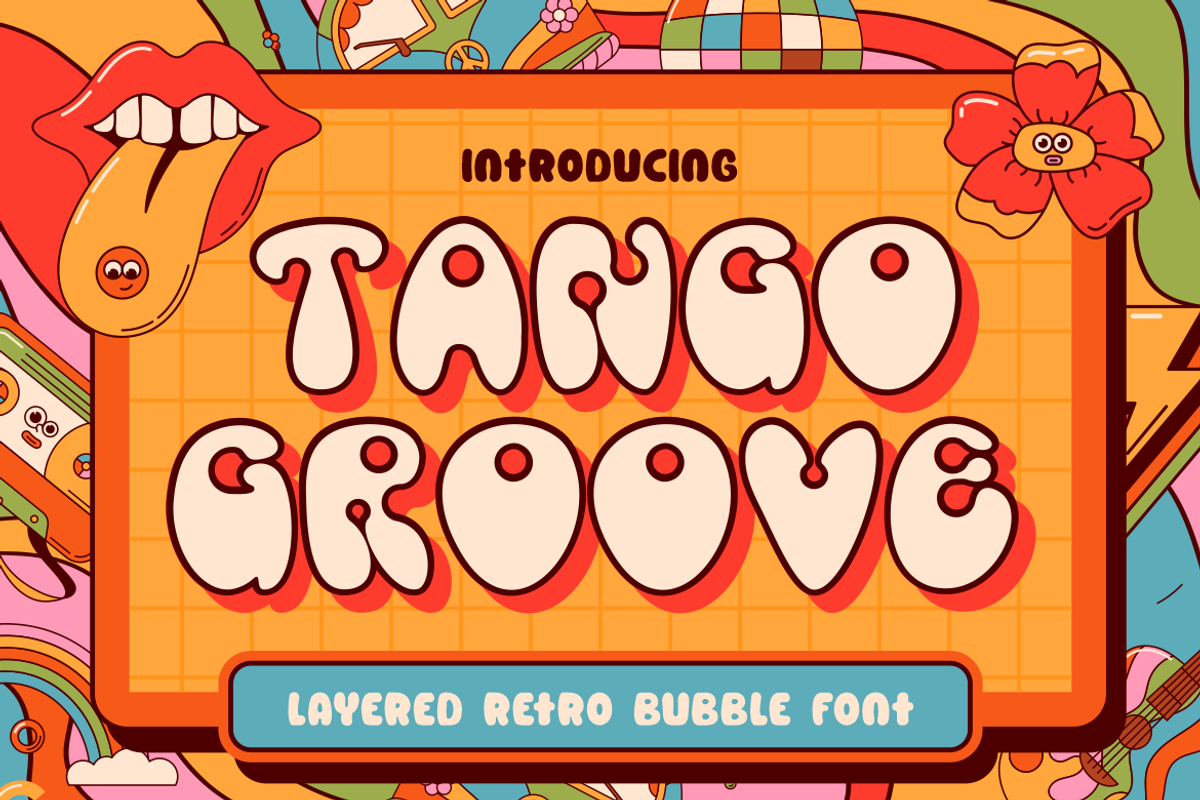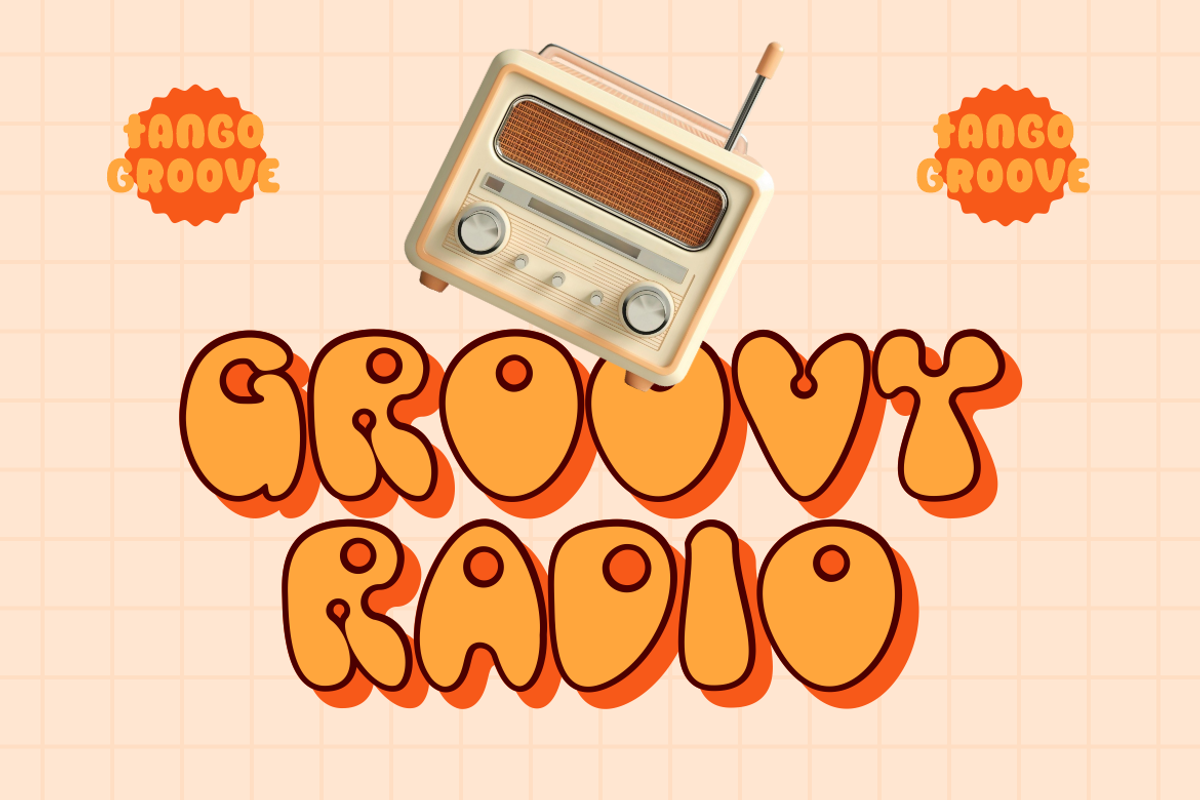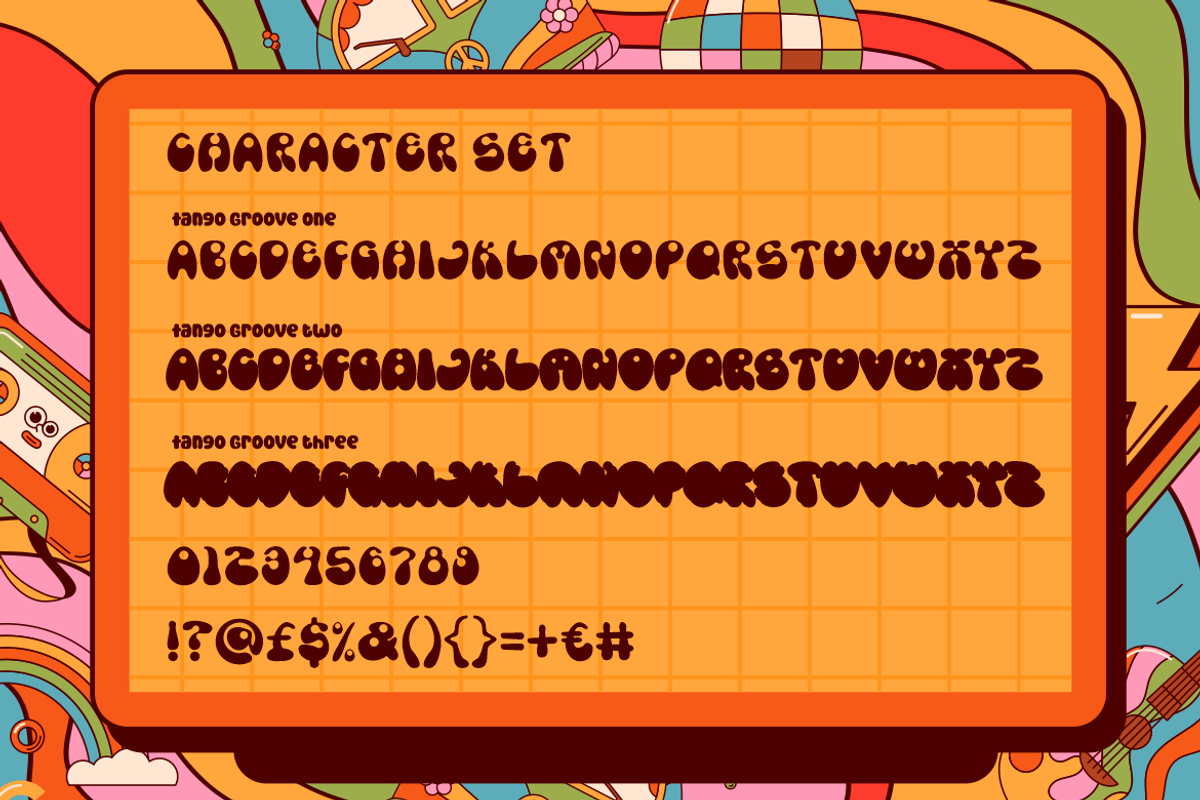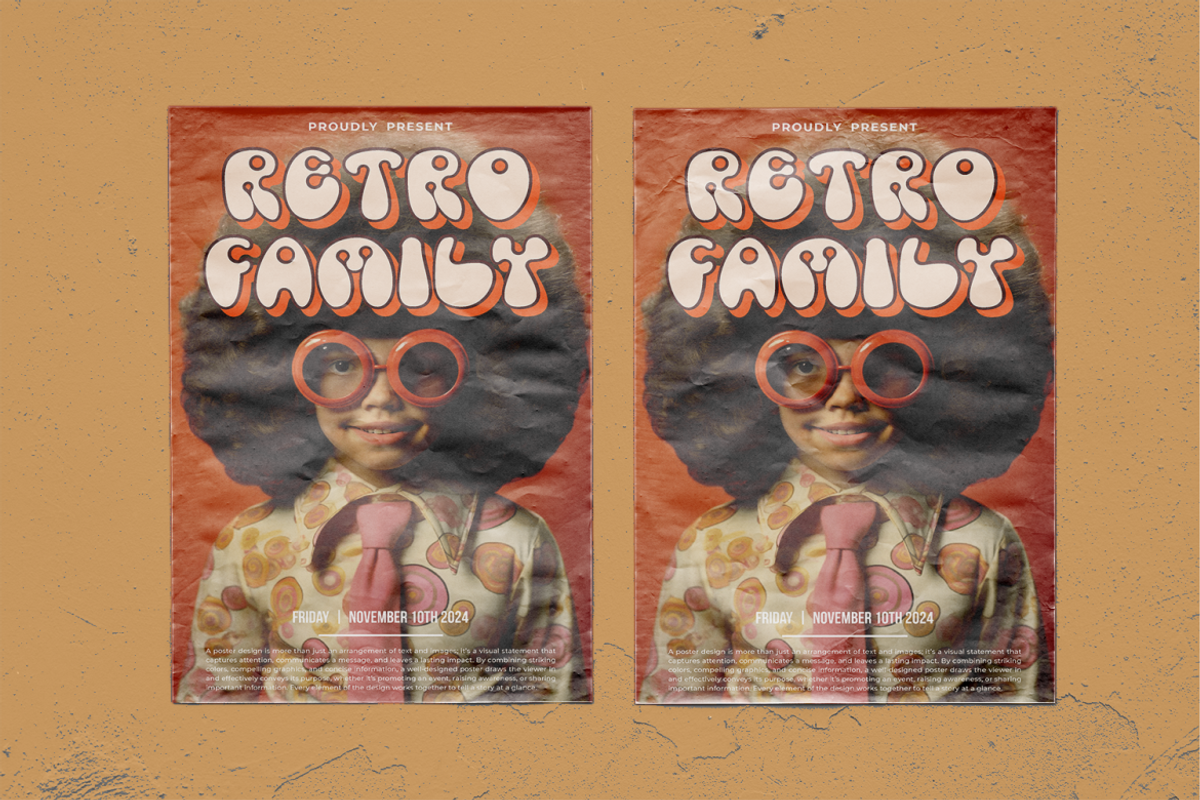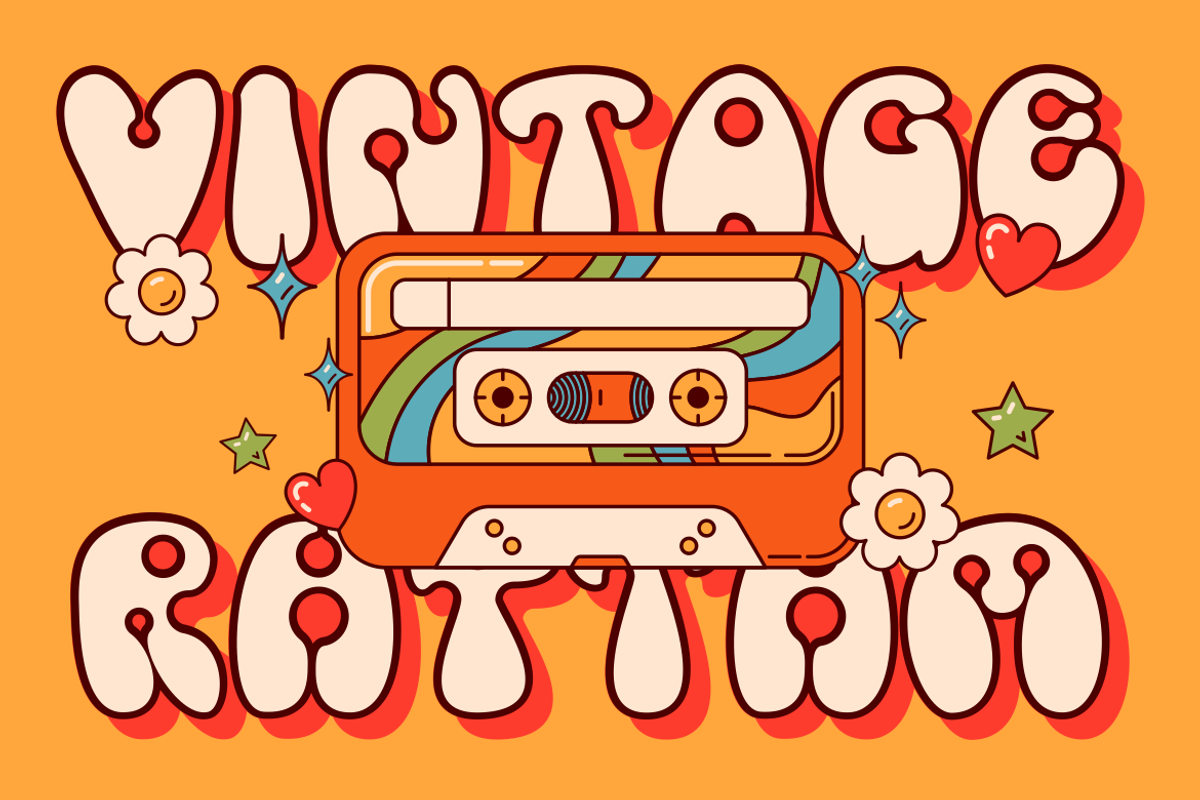
Tango Groove Layered Retro Bubble
Tango Groove is a joyful tribute to the funky, free-spirited typography of the ’60s and ’70s—perfectly infused with a modern digital twist. This layered retro bubble font bursts with personality through its bold curves, rounded forms, and shadowed depth. Its soft bubble-like structure and vibrant contrast make each character visually pop, amplifying every word with a cheerful, groovy attitude. With three stackable layer styles, Tango Groove allows designers to create dynamic 3D visuals effortlessly—ideal for capturing attention in branding, packaging, or playful posters.
From retro music flyers to children’s product branding, this font radiates nostalgia and warmth while maintaining legibility. The outlines are thick and chunky, giving each letter a tactile look. Layering options add a delightful depth, making it feel custom and hand-crafted for your message. Whether you're working on retro-themed merchandise, kids’ party invitations, or psychedelic poster art, Tango Groove delivers a visual rhythm that dances across the page and screen.